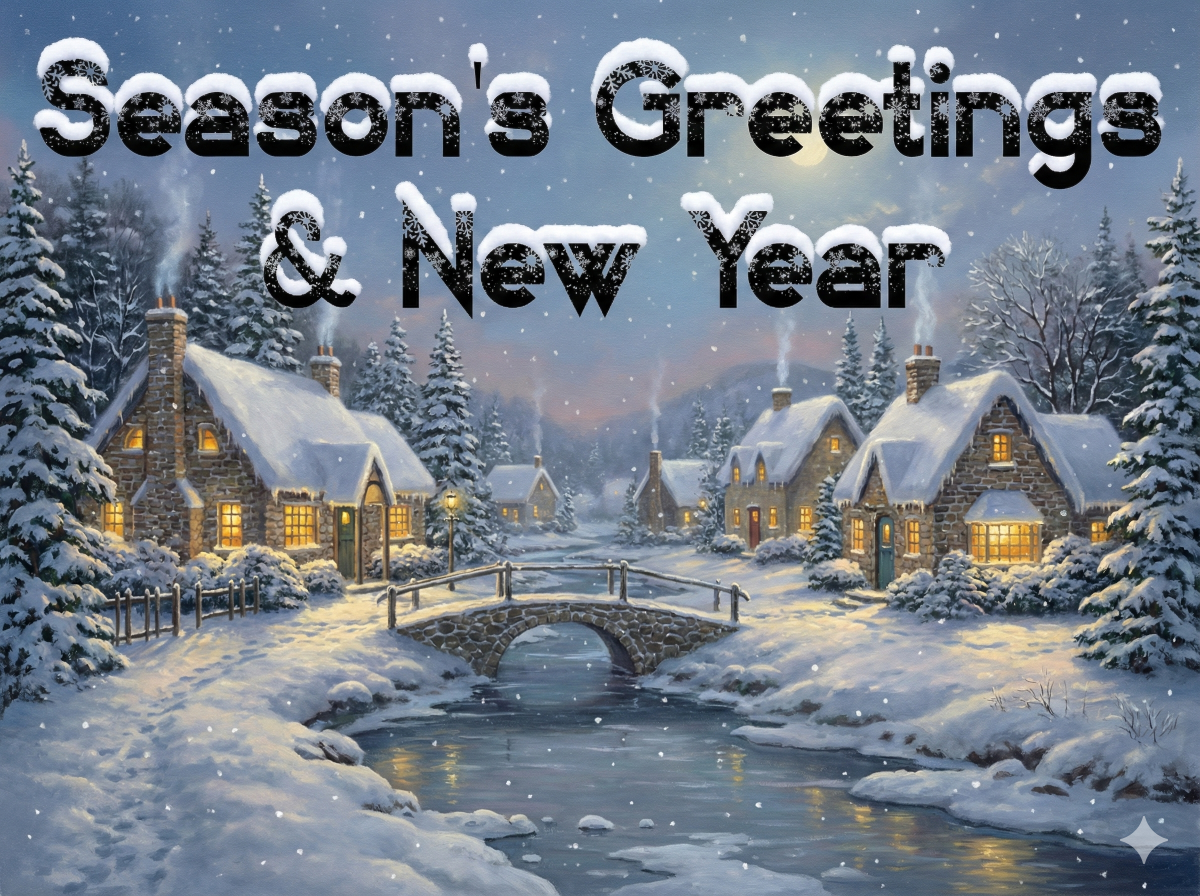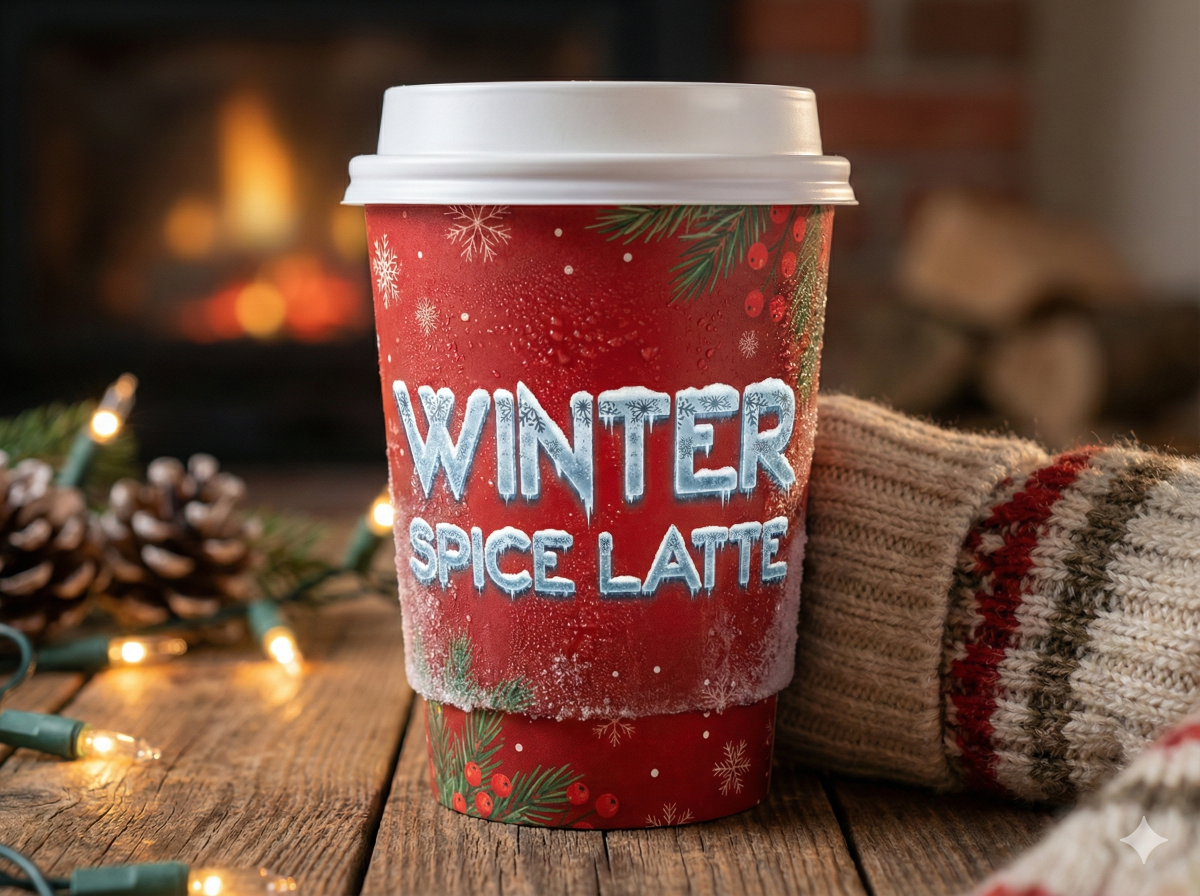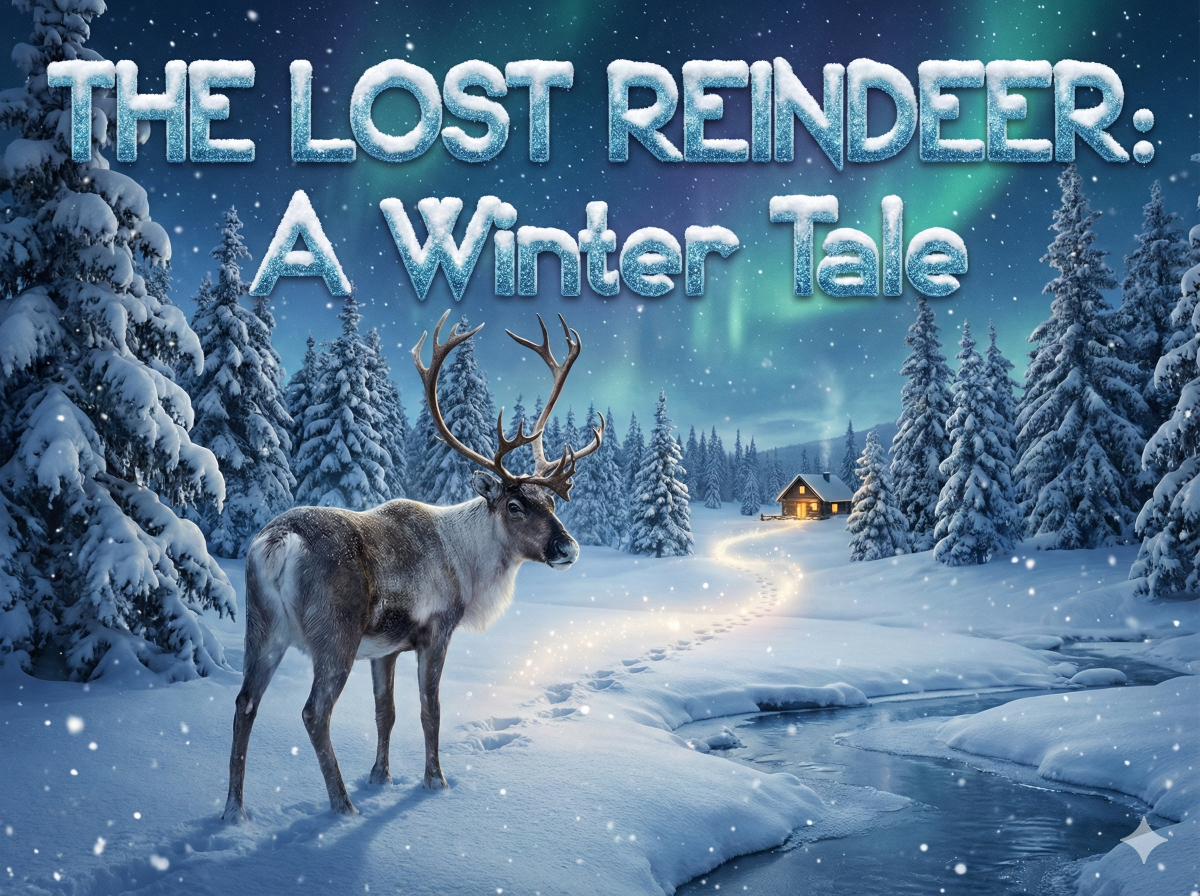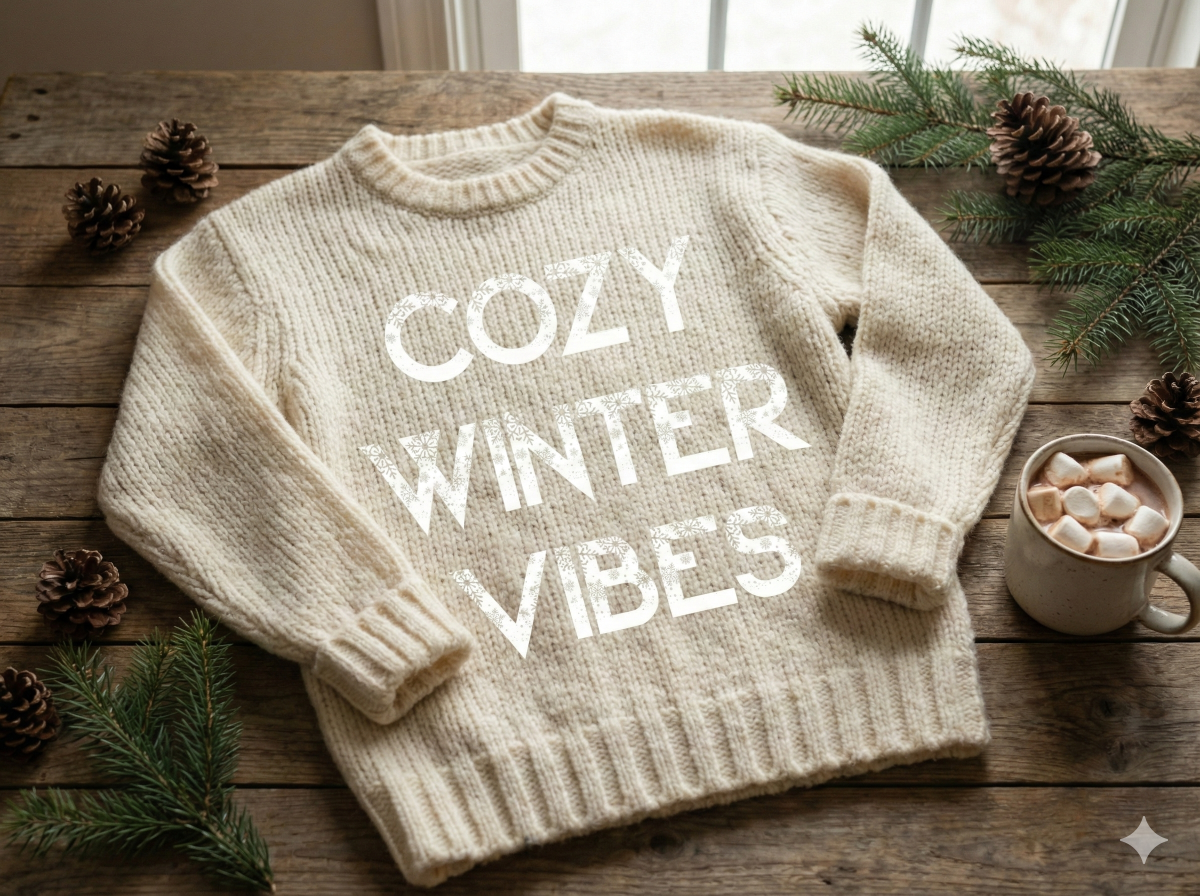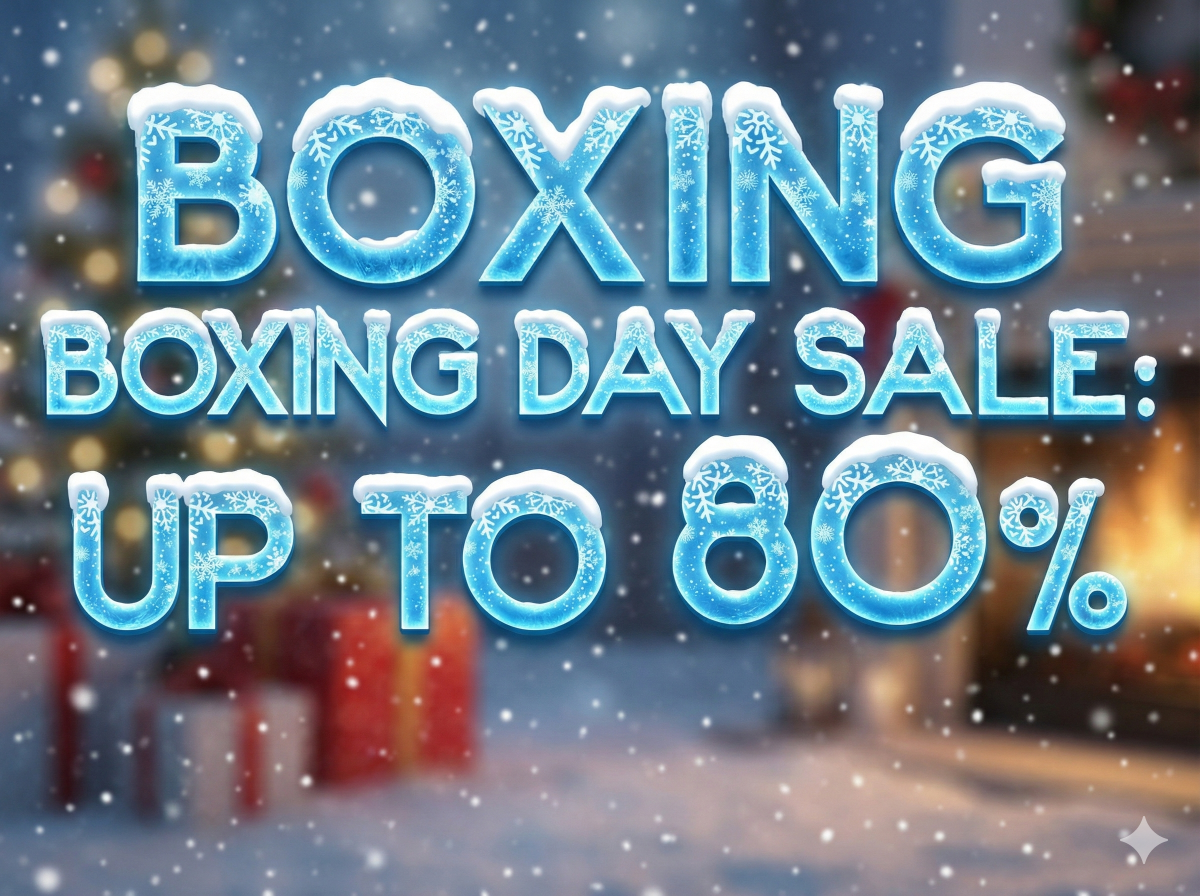
Introducing the Snow Kei font – a captivating display font that beautifully captures the intricate details of snow and the enchantment of winter. With this font, you’ll effortlessly evoke the cozy and magical feelings of a snow-covered day.
The Snow Kei font is more than just a typeface; it’s a journey into the heart of winter. Each character is crafted to resemble delicate snowflakes, infusing your designs with the serene beauty and charm of the season. Whether you’re designing holiday greeting cards, winter-themed posters, or creating a Winter font for your festive projects, Snow Kei font is your ideal choice.
With this font, your designs will radiate the spirit of winter, making every project a winter wonderland. Embrace the enchantment of snow and the holiday season, and create unforgettable designs that capture the magic of Winter. Choose Snow Kei font to transform your text into a winter masterpiece, and let your creativity shine with this captivating display font.
Snow Kei is a cheerful and unique display font that captures the magic of winter and the joy of the holiday season. With its organic shapes and playful vibe, this font is designed to give your projects a warm, “handmade” touch.
It is perfectly suited for:
- Greeting cards and invitations.
- Winter-themed branding.
- Children’s book covers and posters.
- Social media graphics and playful logos.
- Ton of glyphs
- Fonts include multilingual support for; Afrikans, Albanian, Czech, Danish, Dutch, English, Estonian, Finnish, French, German, Hungarian, Italian, Latvian, Lithuanian, Norwegian, Polish, Portuguese, Slovak, Slovenian, Spanish, Swedish.